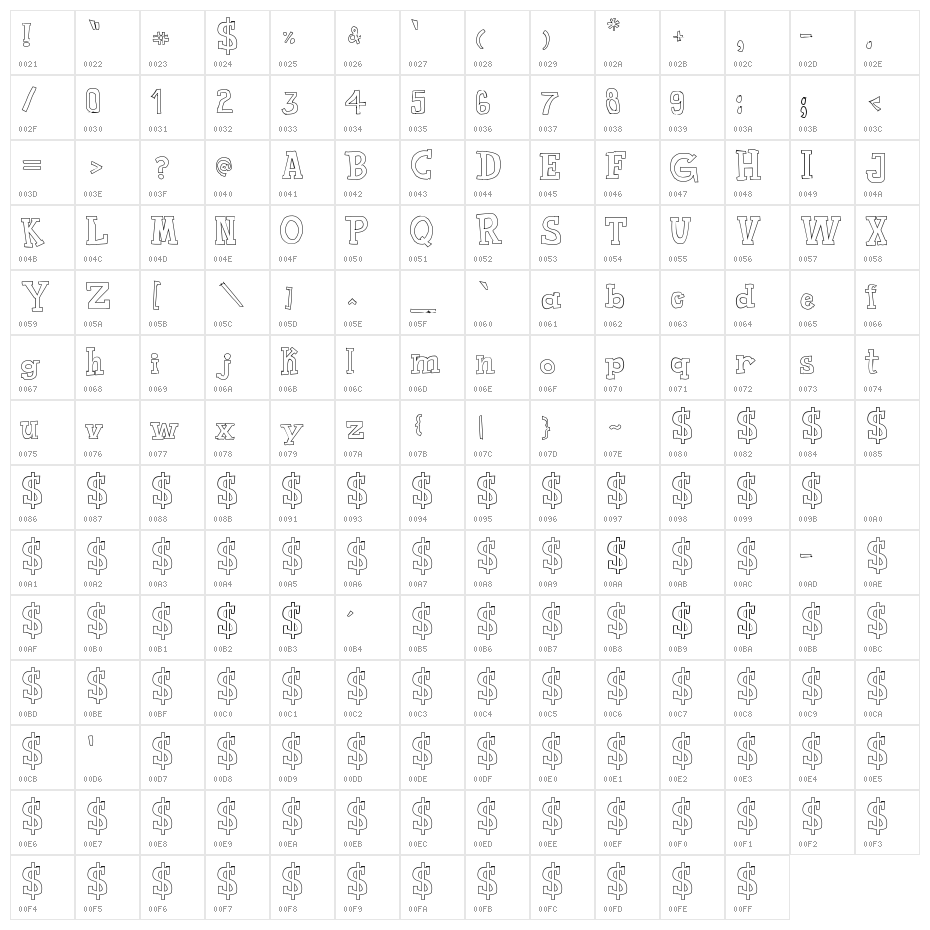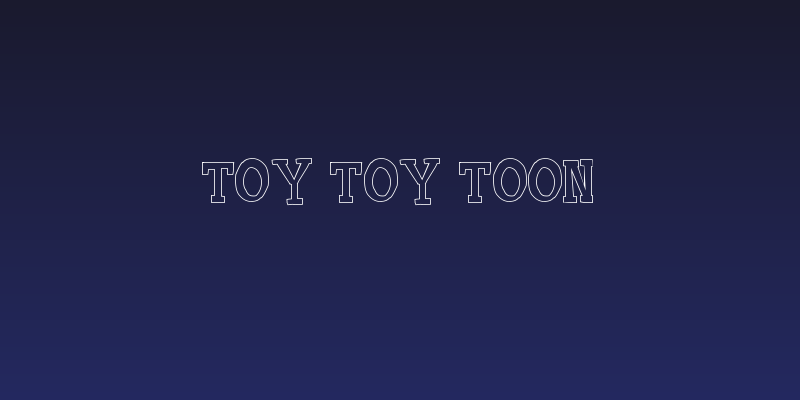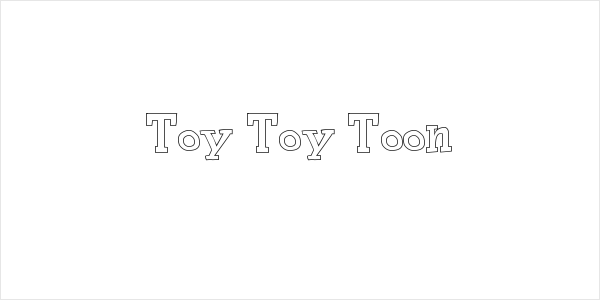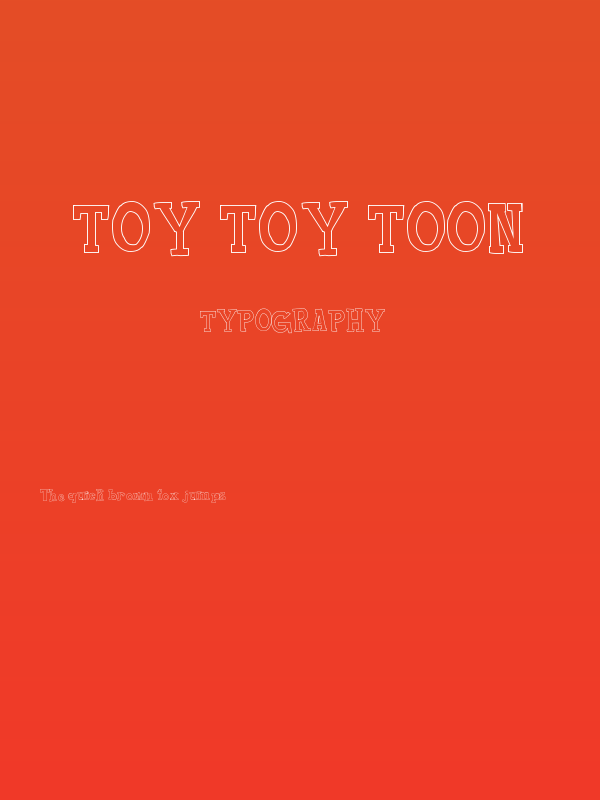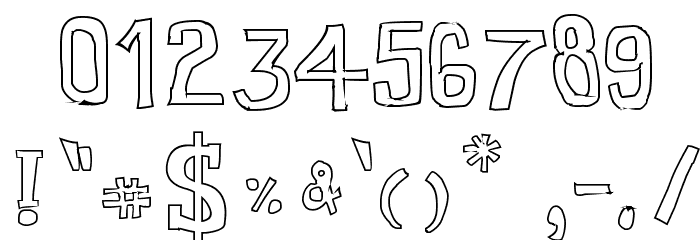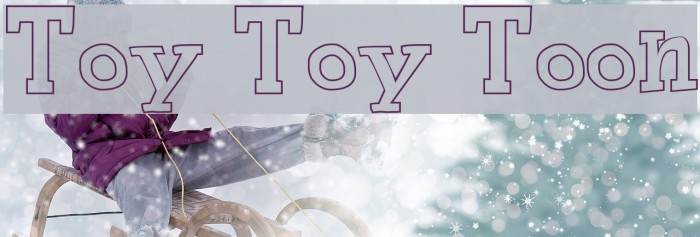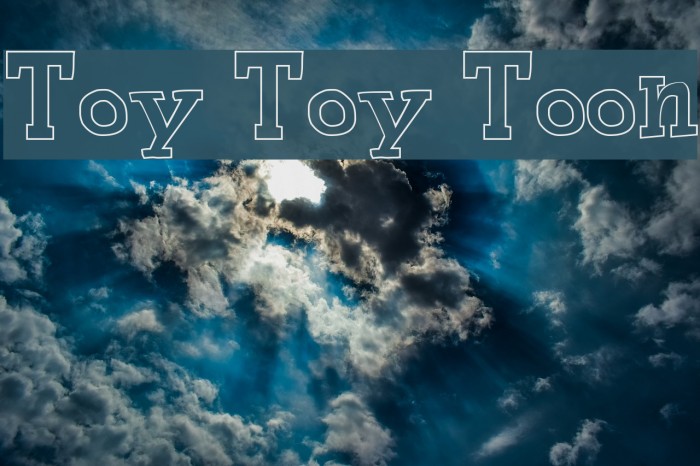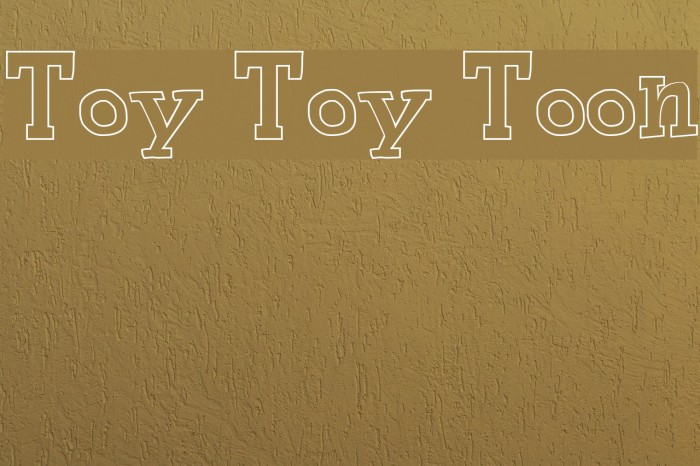
Toy Toy Toon Font
Toy Toy Toon Description
This playful and whimsical font features a hand-drawn, cartoonish style with bold outlines and irregular shapes. The letters have a lively, animated appearance, reminiscent of classic comic book or cartoon lettering. Each character is uniquely crafted, giving it a fun and informal vibe. The uppercase and lowercase letters maintain a consistent style, with exaggerated curves and angles that add to its quirky charm. Numbers and special characters follow the same playful design, making it suitable for creative and lighthearted projects. The font's overall look is both eye-catching and approachable, perfect for capturing attention in a fun and engaging way.
| Overall Style | Playful, Cartoonish, Whimsical |
| Proposed Projects | Ideal for children's books, comic strips, playful branding, and party invitations. |